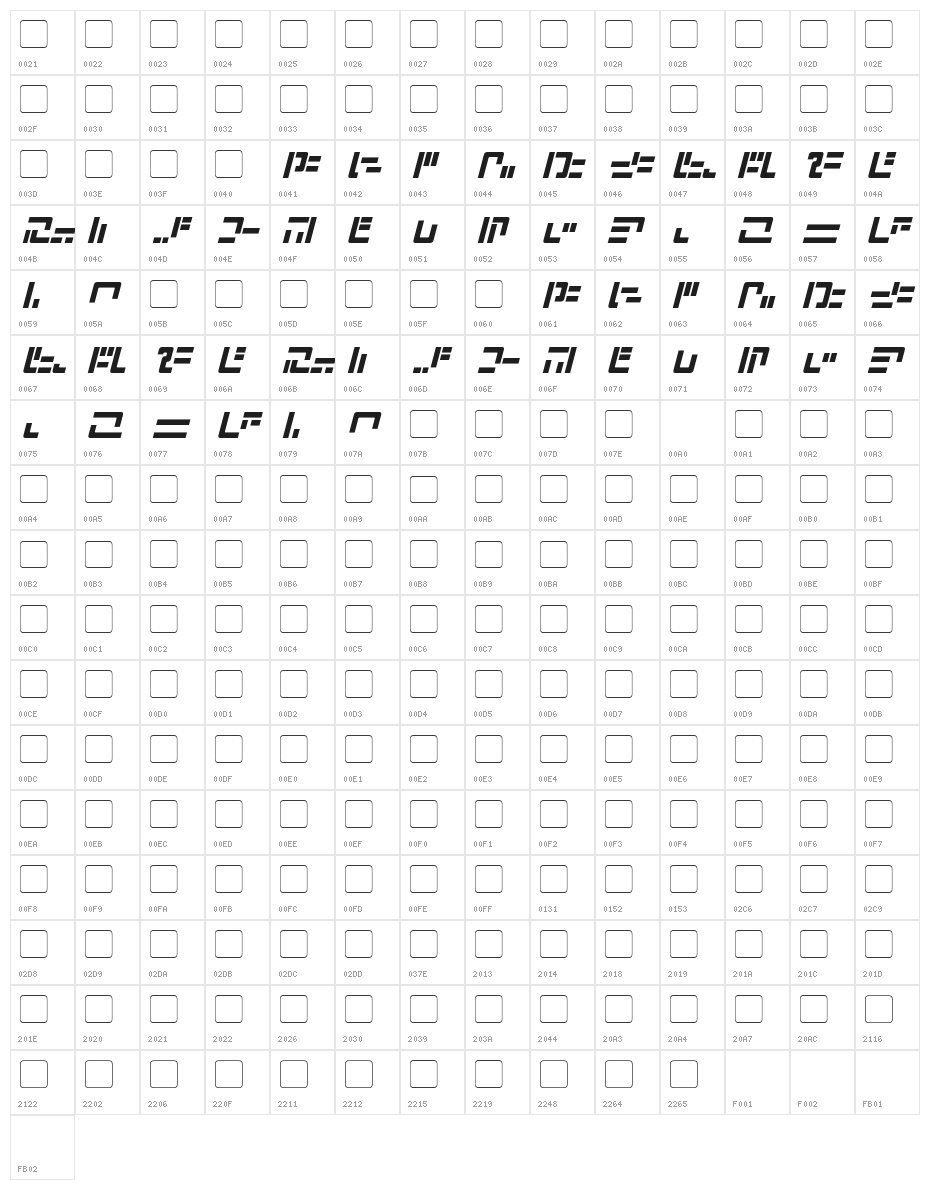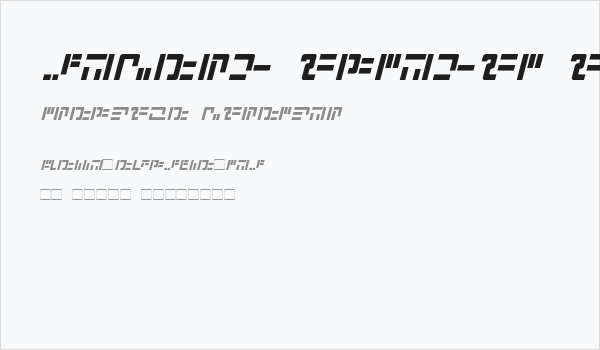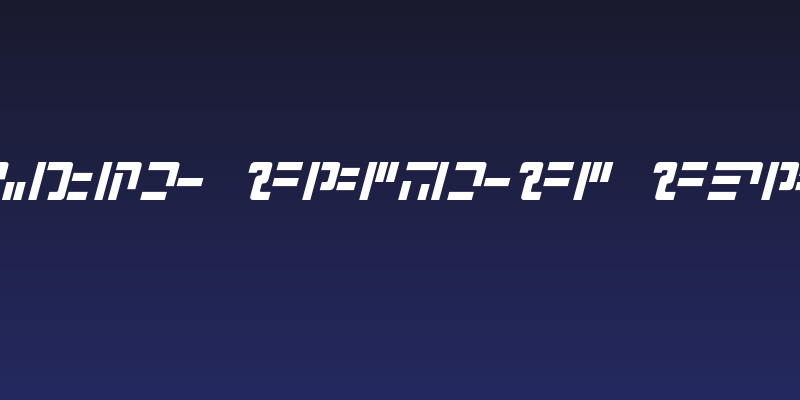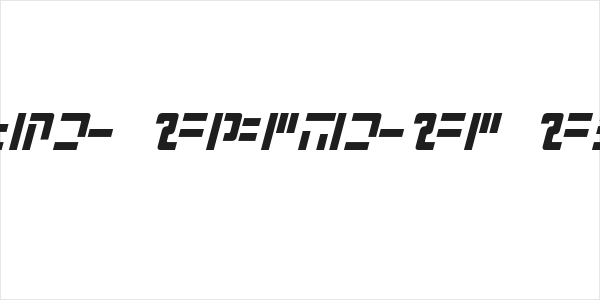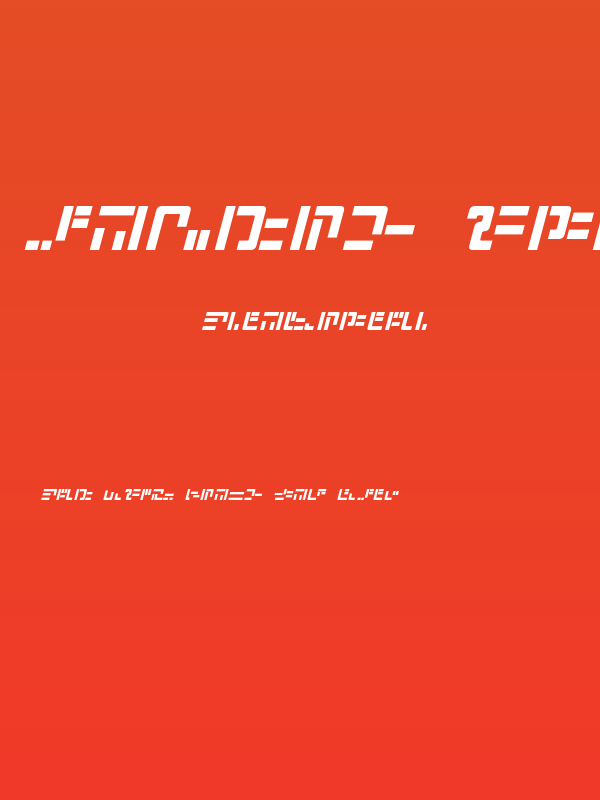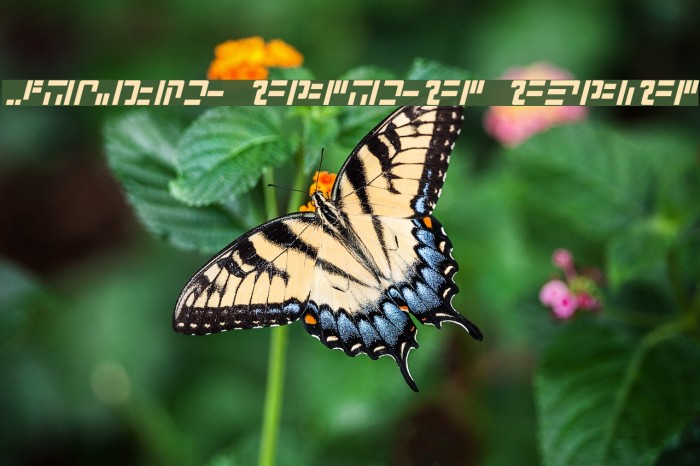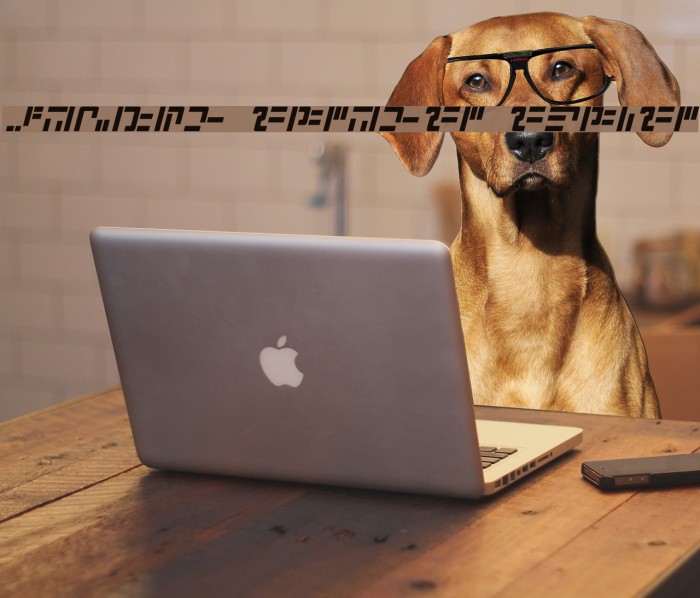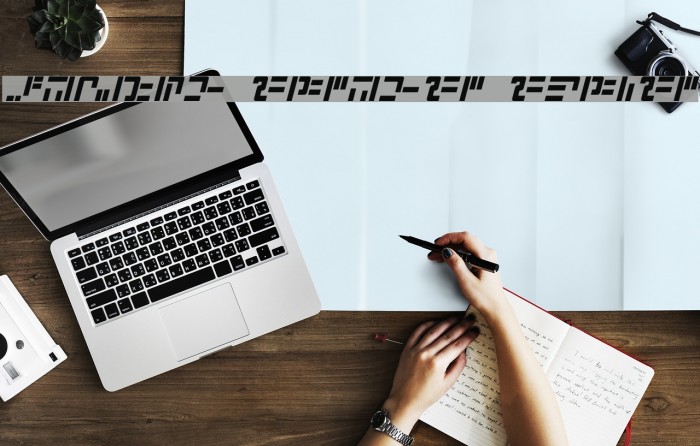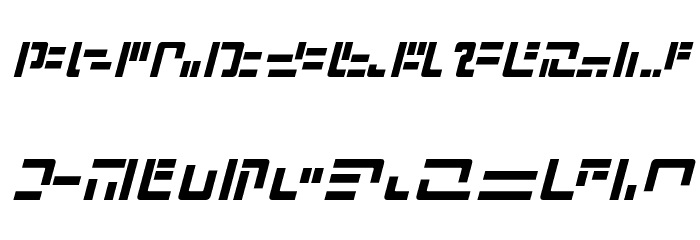
Modern Iaconic Italic Font
This font features a futuristic and geometric design with a distinct italic slant, giving it a dynamic and forward-moving appearance. The characters are composed of bold, angular lines and sharp edges, creating a sense of speed and modernity. The font lacks traditional curves, opting instead for straight lines and angles that contribute to its unique, tech-inspired aesthetic. The spacing between characters is consistent, maintaining a uniform look across text. This font is particularly well-suited for projects that require a modern, cutting-edge feel, such as technology branding, sci-fi themed designs, or innovative product packaging.
| Use Case | Logos, Headlines, Display text |
| Proposed Projects | Ideal for technology branding, sci-fi themed designs, innovative product packaging, and modern digital interfaces. |